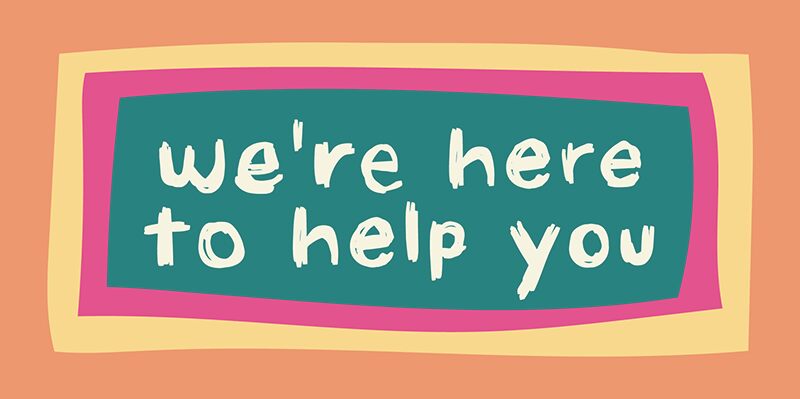
Loppemarked 3 by Pizzadude is a captivating script font that adds a touch of edgy sophistication to any project.
With its semi-bold weight and trashy style, this font is perfect for rebellious branding campaigns, grunge-inspired album covers, and unconventional event posters. Let your creativity roam free with Loppemarked 3 as it effortlessly infuses a sense of rebellion and individuality into your designs. Whether you're aiming for an alternative fashion look or a rock 'n' roll vibe, this script font will make your projects stand out from the crowd.